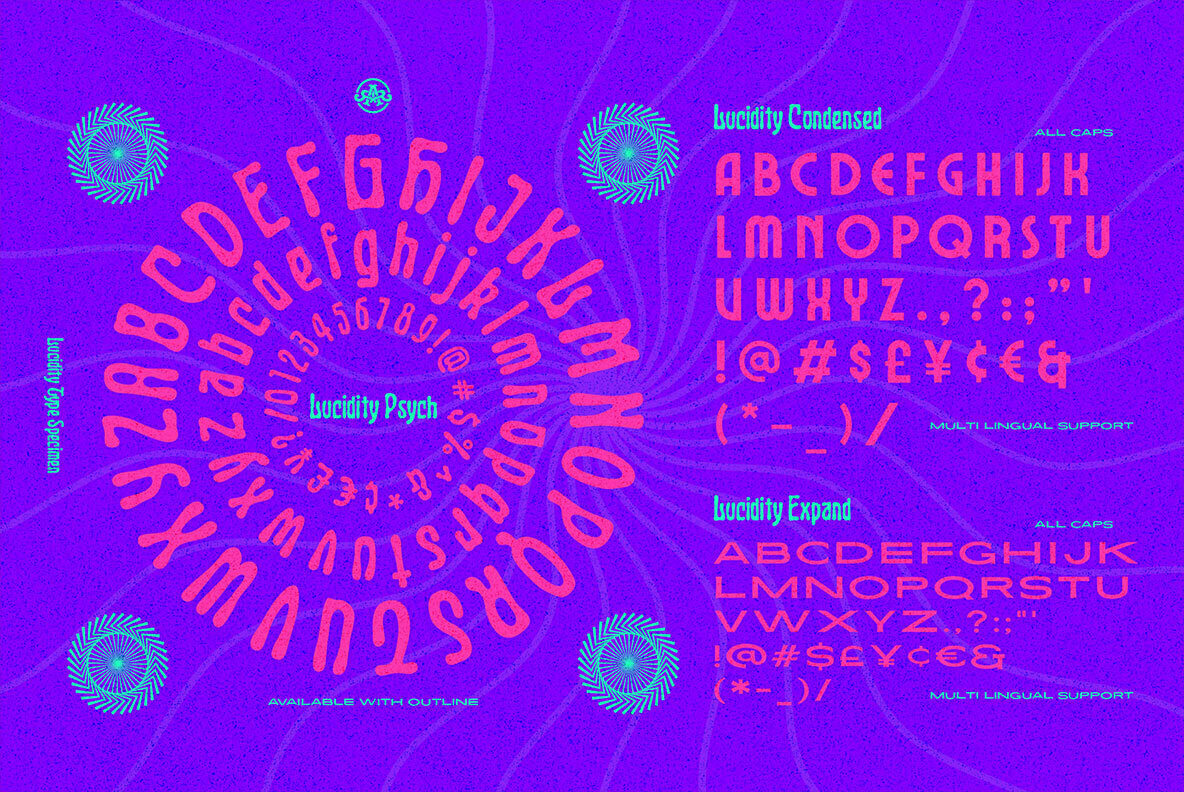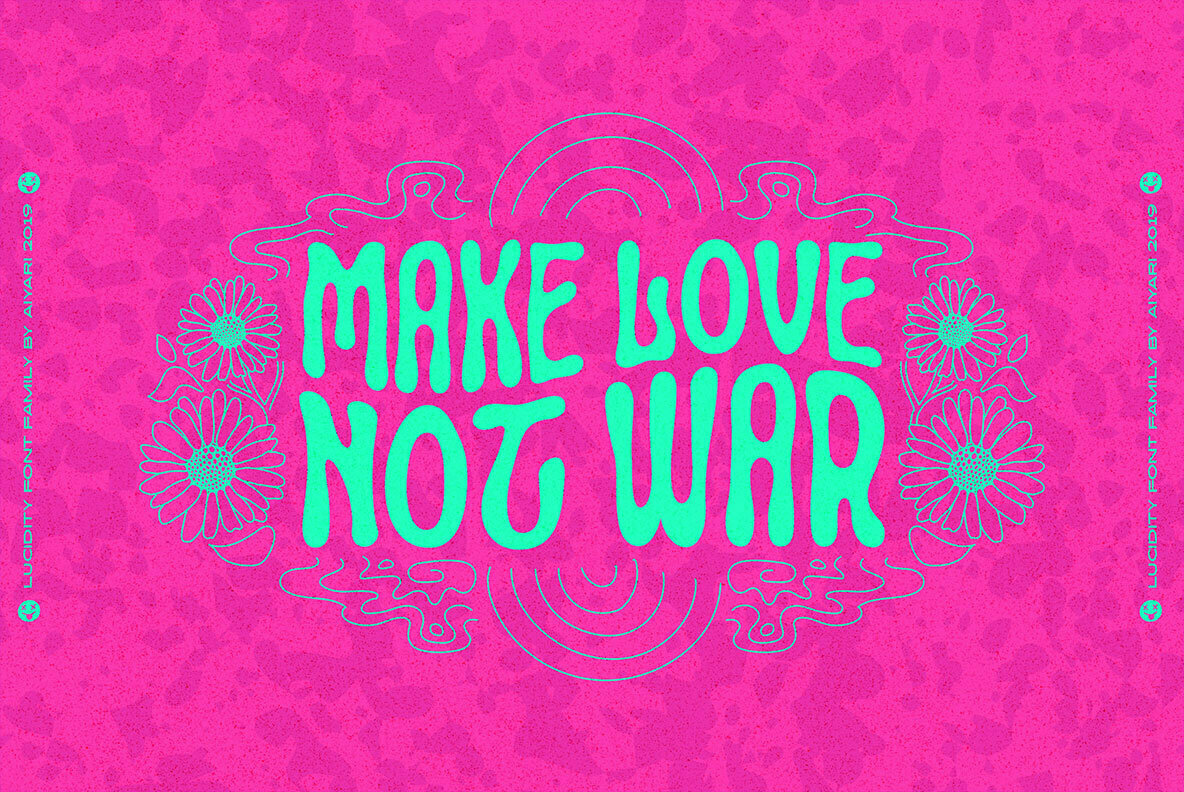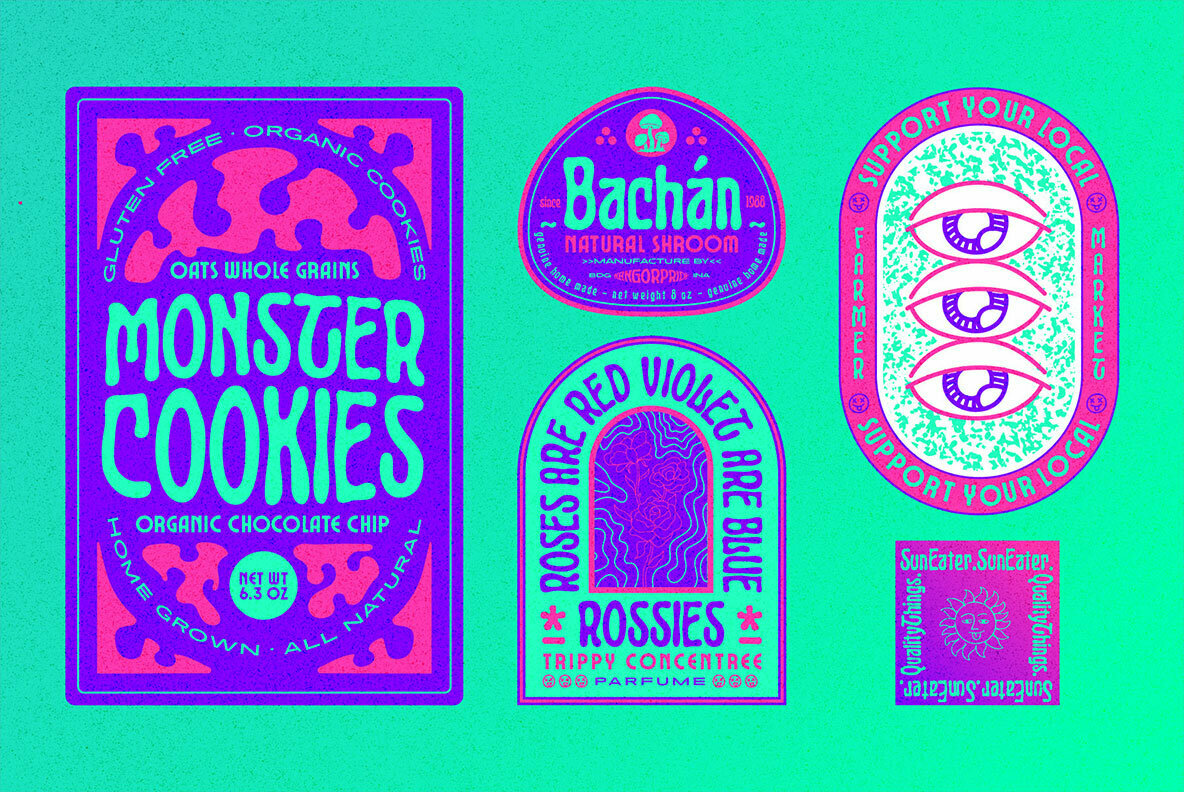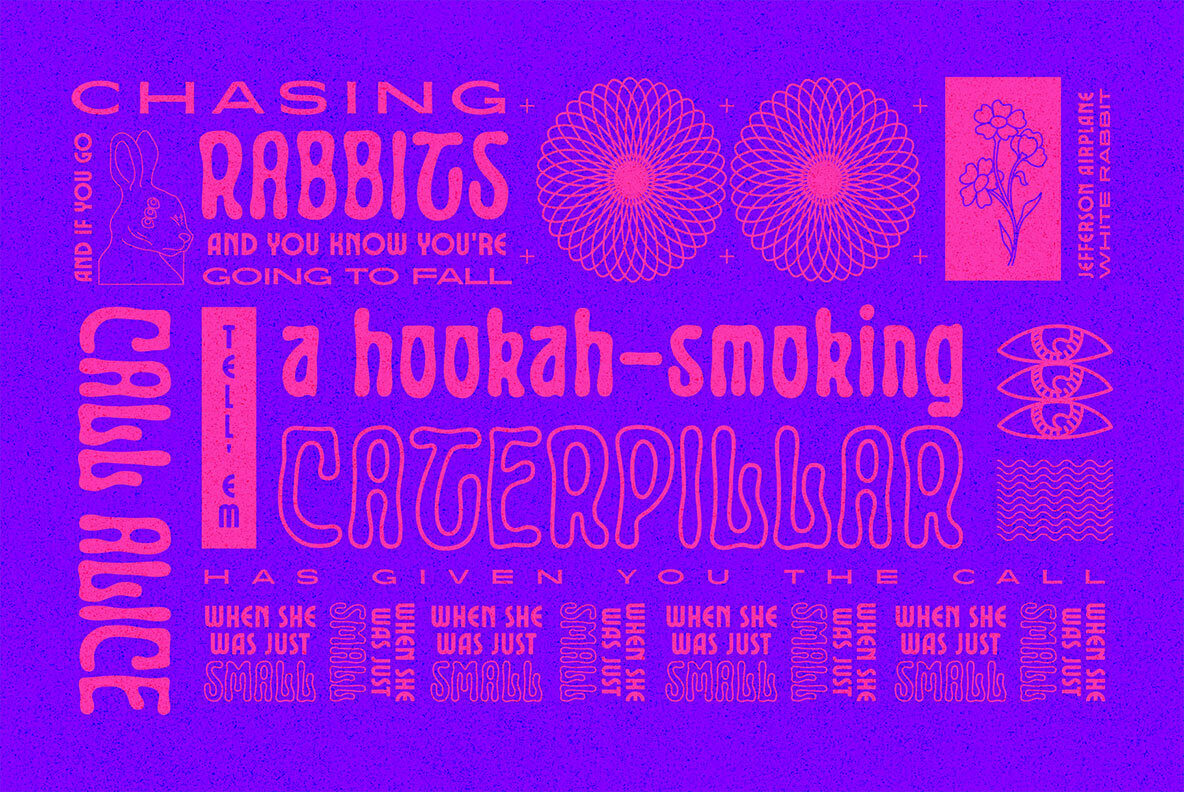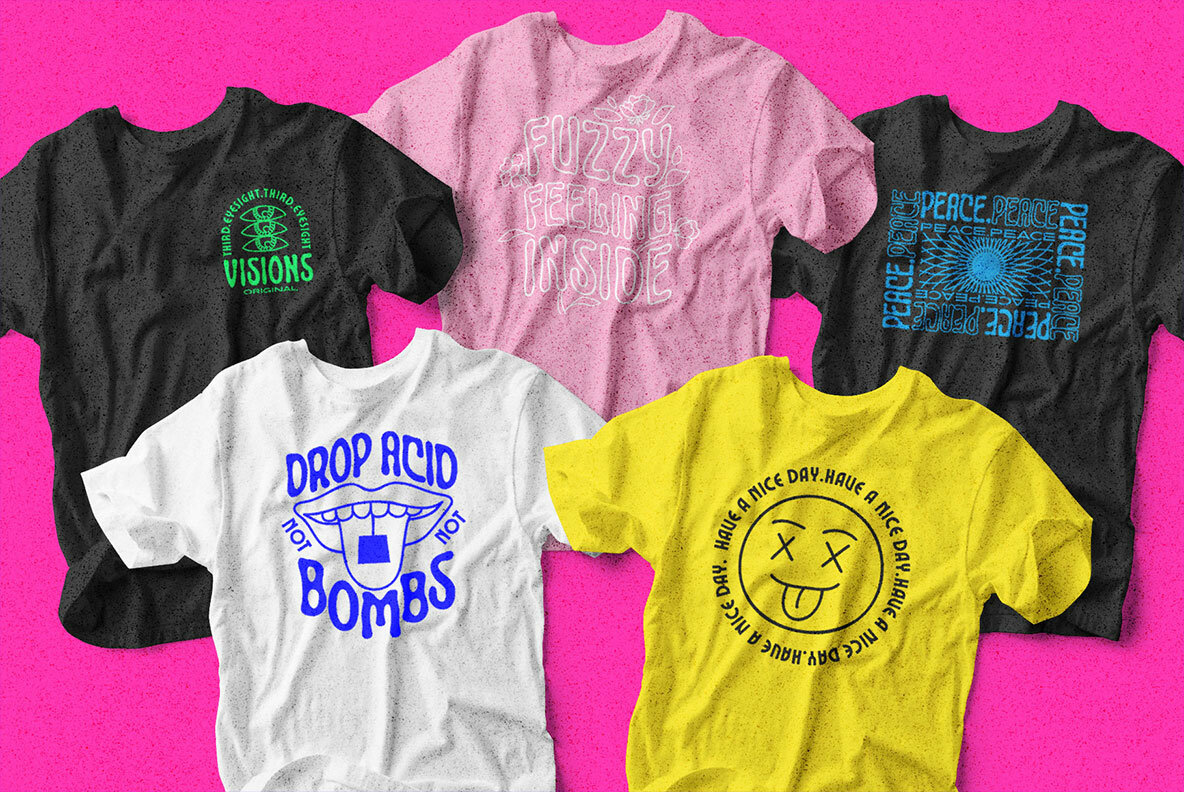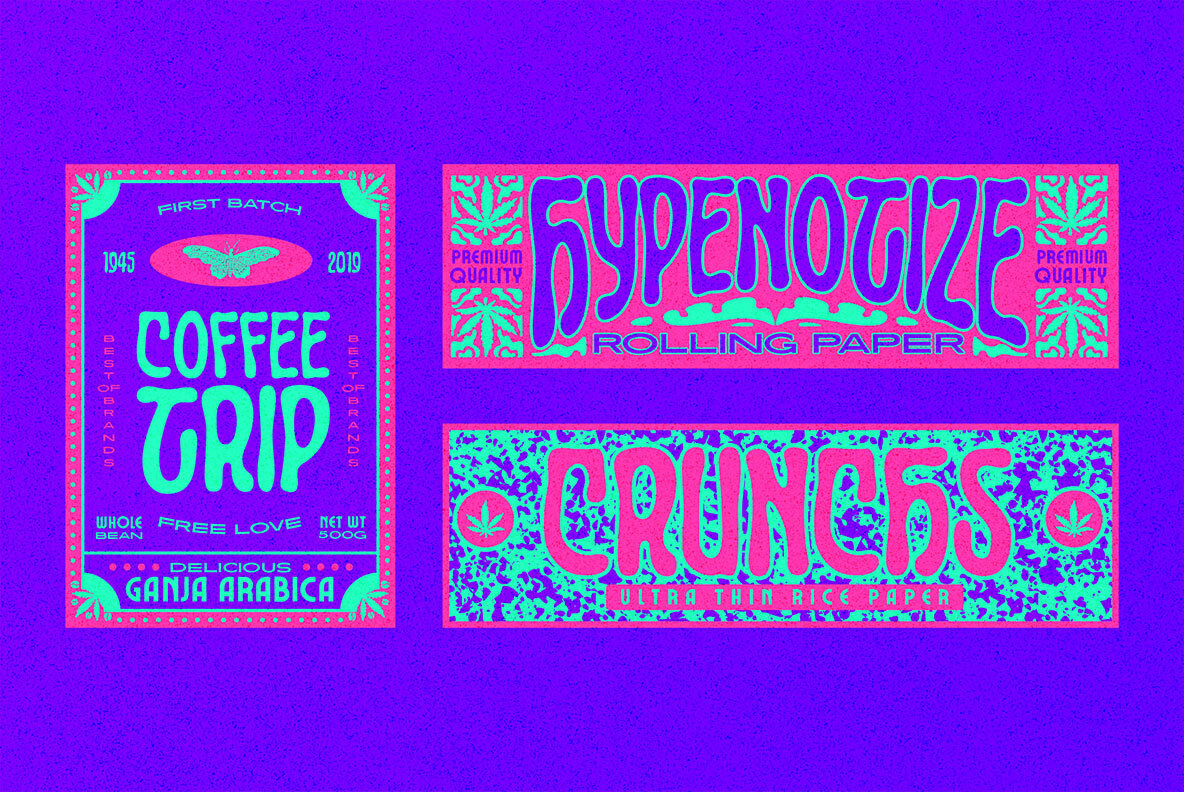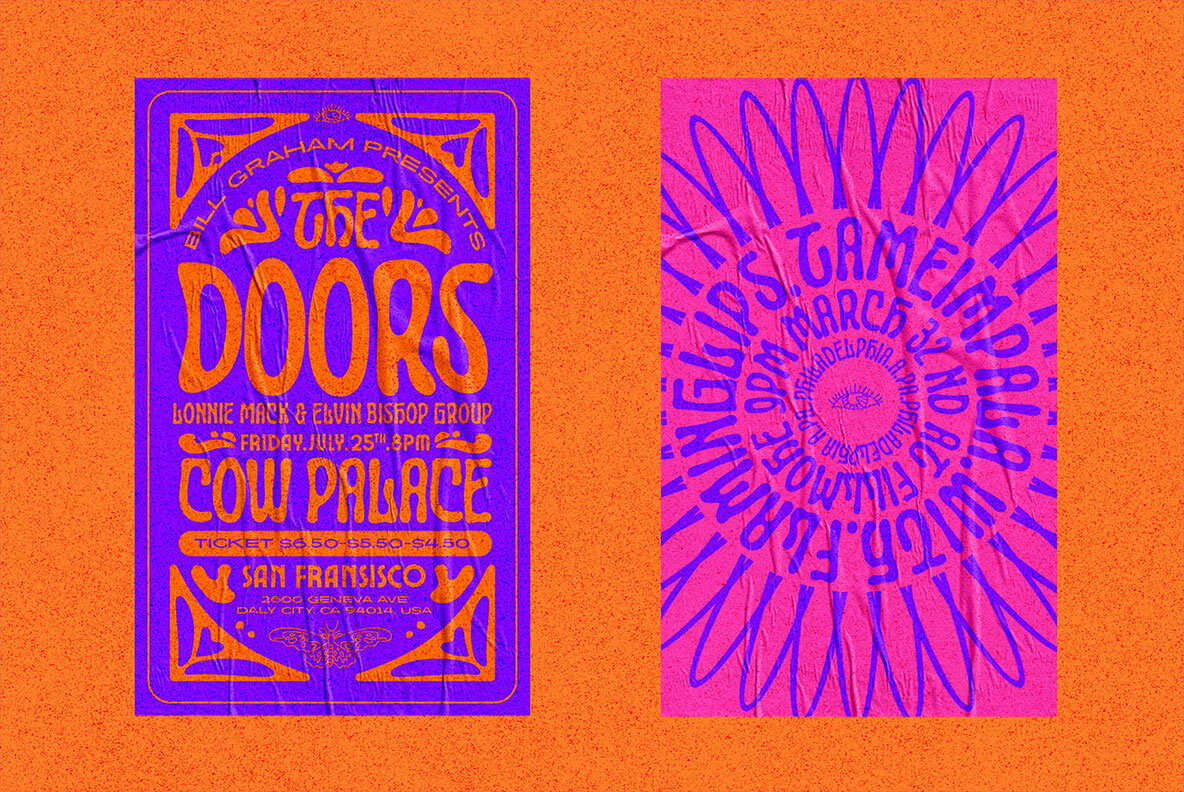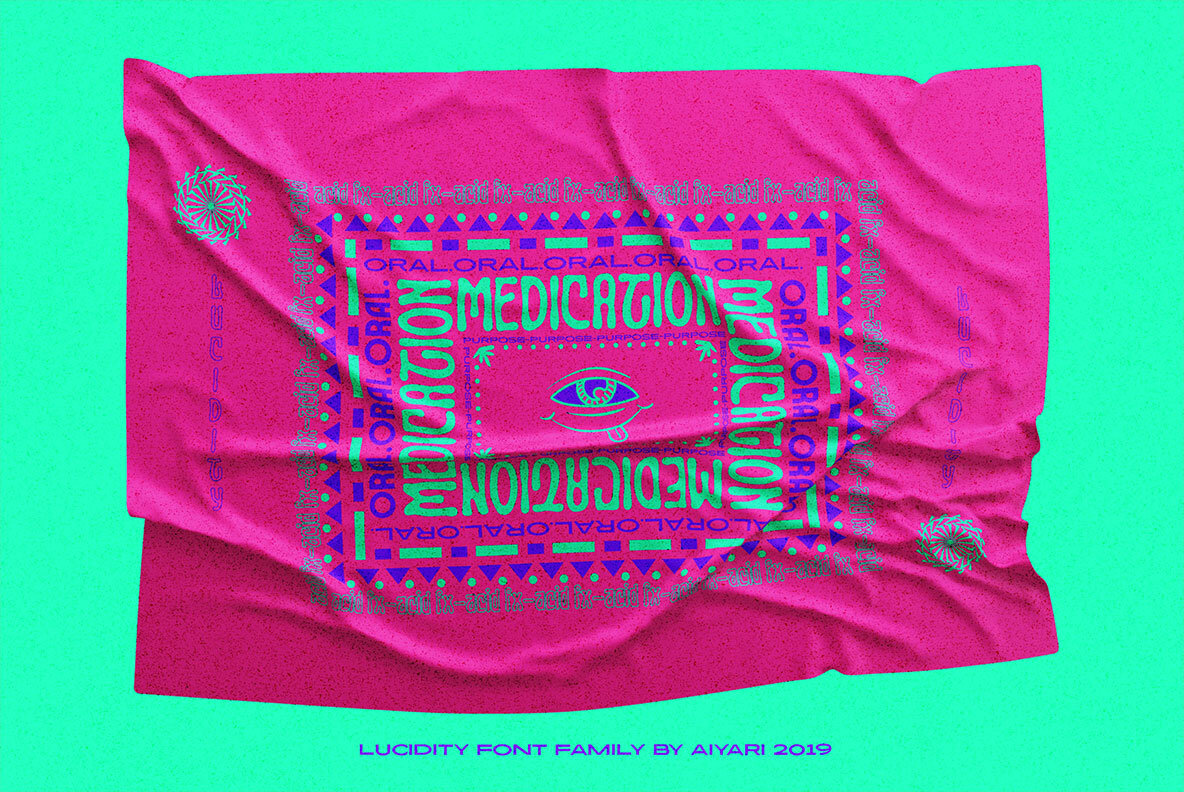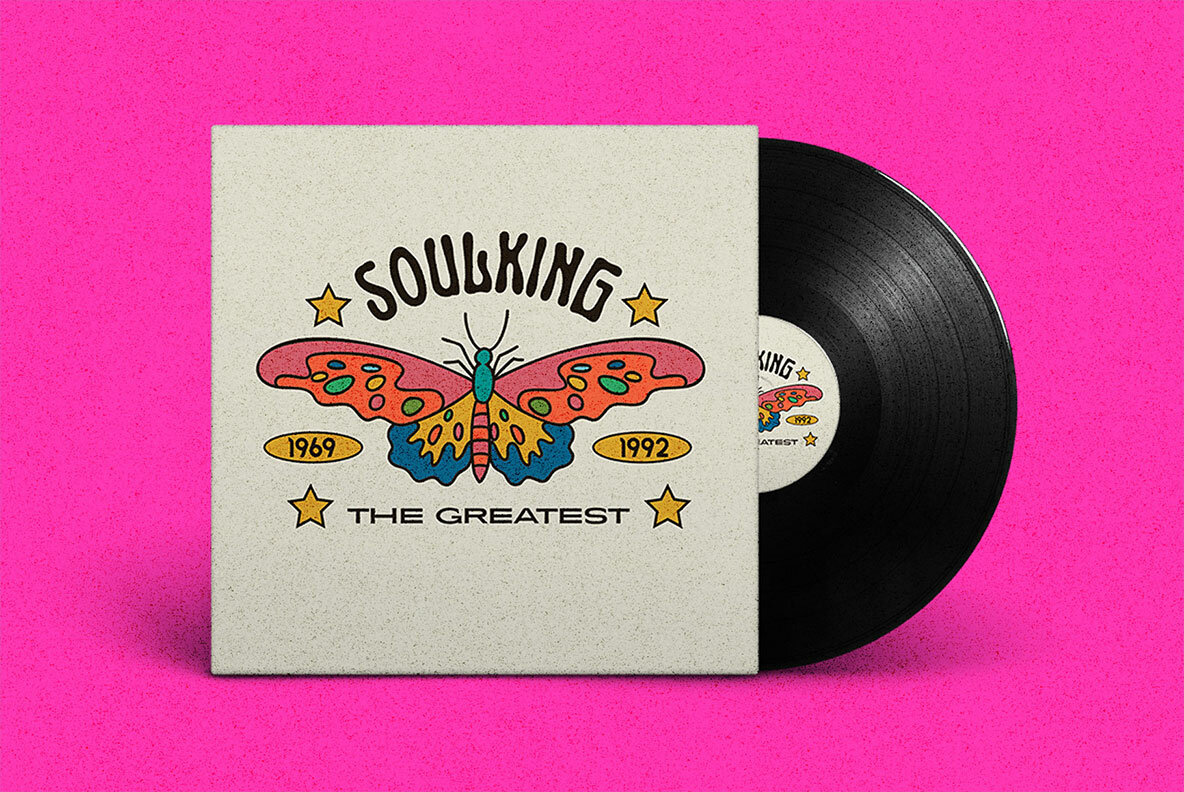
Lucidity Font
Embracing the psychedelic era combined with a modern touch, the Lucidity font family comes with opentype features such as stylistic alternates & ligatures.